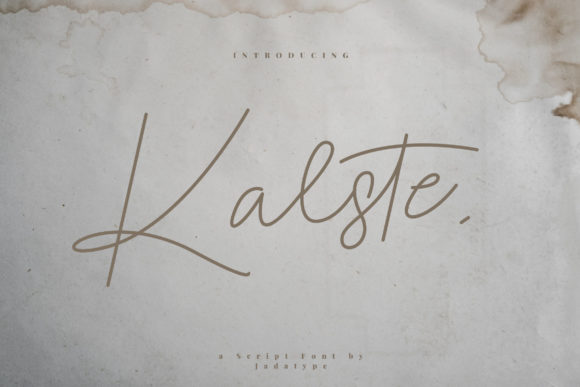
About Kalste Font
Introducing “Kalste,” a refined and delicate script font that effortlessly embodies sophistication and elegance. With its slender strokes and graceful curves, “Kalste” is an excellent choice for enhancing your branding and design projects with a touch of timeless beauty.
The slim and delicate nature of “Kalste” brings a sense of refinement and subtlety to your creations. Its graceful letters flow seamlessly, capturing the essence of handwritten elegance while maintaining a clean and polished appearance. Whether you’re designing a logo, crafting a t-shirt design, or working on any other creative endeavor, “Kalste” will infuse your projects with an air of sophistication.
Imagine “Kalste” gracing the labels of luxury products, adorning high-end packaging, or adding an element of class to your marketing materials. Its slim and delicate script effortlessly conveys a sense of exclusivity and premium quality, making it a versatile font that can elevate a wide range of contexts.
The versatility of “Kalste” allows it to adapt to various themes and styles. Whether your project calls for a modern and minimalist aesthetic or a more intricate and decorative approach, “Kalste” can seamlessly integrate and enhance your design vision. Its slim and delicate strokes add a touch of finesse that resonates with discerning audiences.
By incorporating “Kalste” into your design toolkit, you’ll have a powerful tool at your disposal to create stunning visuals that leave a lasting impression. Let its slender script become the canvas for your creativity, and watch as it transforms your branding, logos, and various design projects into works of art that exude elegance and sophistication.
In conclusion, “Kalste” is not just a font; it’s a means to elevate your designs and communicate a sense of refined beauty. With its slim and delicate script, “Kalste” offers endless possibilities for creating stunning and impactful visuals that stand out in any context.